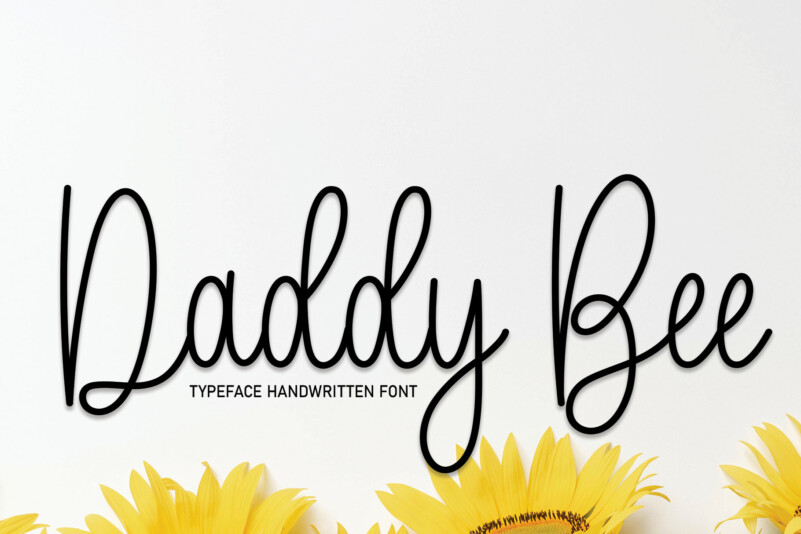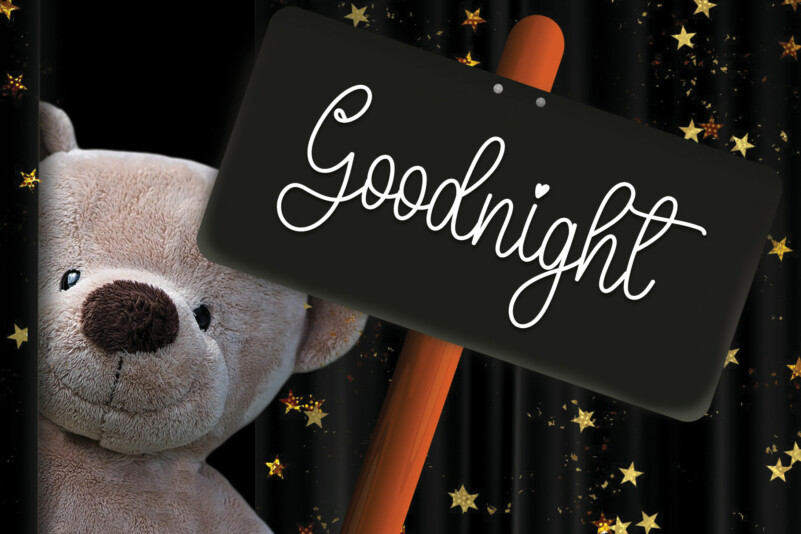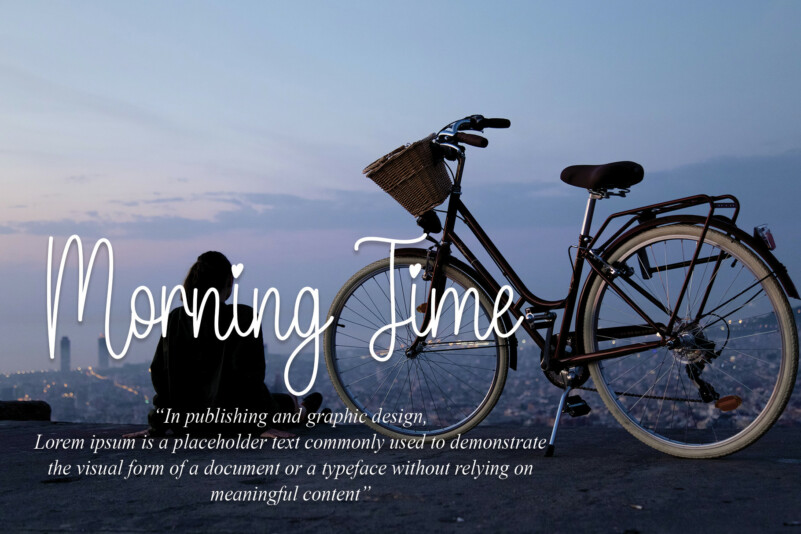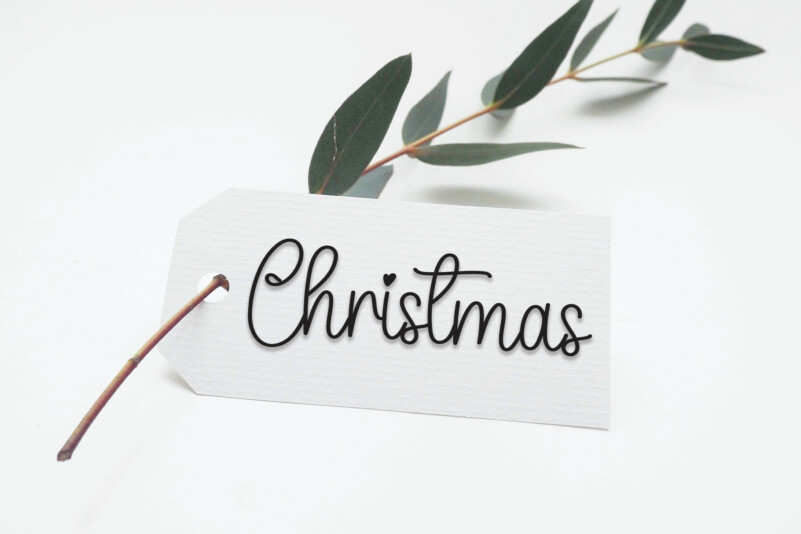
Daddy Bee Handwritten Font
Daddy Bee Handwritten Font is a sweet and delicate handwritten font. It embodies playfulness and authenticity and is the perfect choice for any children activity or school project.